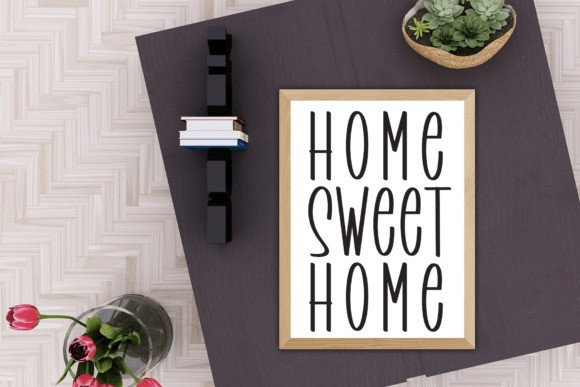
Startled Font
Startled Font, a bold and eye-catching sans serif typeface that commands attention with its unique design. With its sharp lines and contemporary feel, this font adds a touch of modernity and intrigue to your designs.
Perfect for headlines, posters, and branding materials, Startled Font grabs the viewer’s gaze and creates a sense of excitement, making your text stand out with its bold presence and confident style.